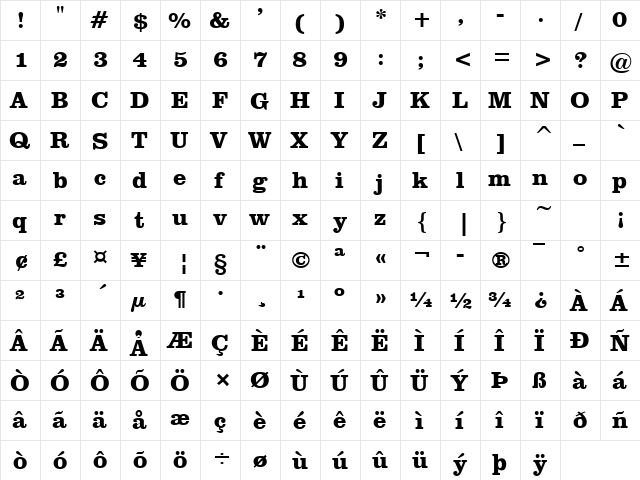
Gettysburg Bold
Design Context for Gettysburg Typeface
Gettysburg takes a measured approach to typography — its balanced proportions and neutral character make it a reliable workhorse for both digital and print work. The heavy weight commands attention and anchors typographic hierarchies.